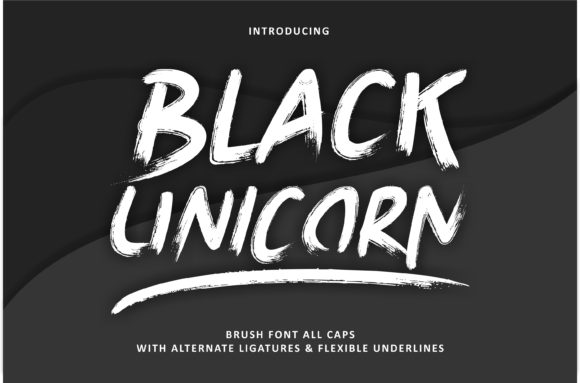
The Magical World of Black Unicorn Font
Have you ever been in the middle of a design project, and suddenly, you just can’t seem to find the right font? I know I have. It was a few months ago when I was working on a branding project for a client who wanted a custom logo that looked hand-written and whimsical. I scoured the internet for hours, trying out font after font, but nothing seemed quite right. That was until I stumbled upon the Black Unicorn Font. ✨
A Personal Review of Black Unicorn Font
I’m so glad I found this font! Here’s what I love about it:
• 💫 It’s a beautiful, brush-style handwritten font that adds a touch of magic to any project.
• ✅ The font features lots of alternate ligatures and swashes, which make it look like your own handwriting.
• 🎉 It’s PUA encoded, which means you can access all of the glyphs and swashes with ease!
• 🤔 Some of the swashes can be a bit finicky to access, but I’ll get into how to use them in a minute.
• ⚠️ The font can be a bit over-the-top for very formal or traditional designs.
The Story Behind Black Unicorn Font
While the origins of Black Unicorn Font are shrouded in mystery, it’s clear that the designer was inspired by the magic and wonder of mythical creatures. According to legend, the font was created by a designer who wanted to capture the whimsy and playfulness of a child’s imagination. And with its unique blend of swashes, ligatures, and handwritten charm, it’s no wonder that Black Unicorn Font has become a favorite among designers and crafters.
Is Black Unicorn Font suitable for body text? While Black Unicorn Font is beautiful, it’s probably best used as a display font or for short blocks of text. Its unique character and swashes may be overwhelming for long blocks of body text.